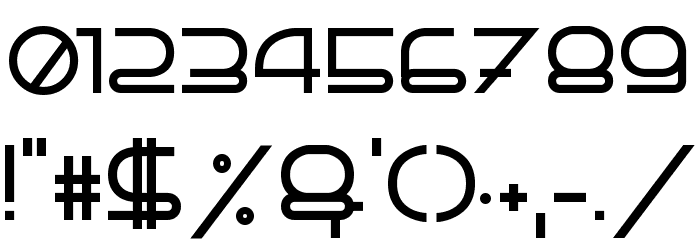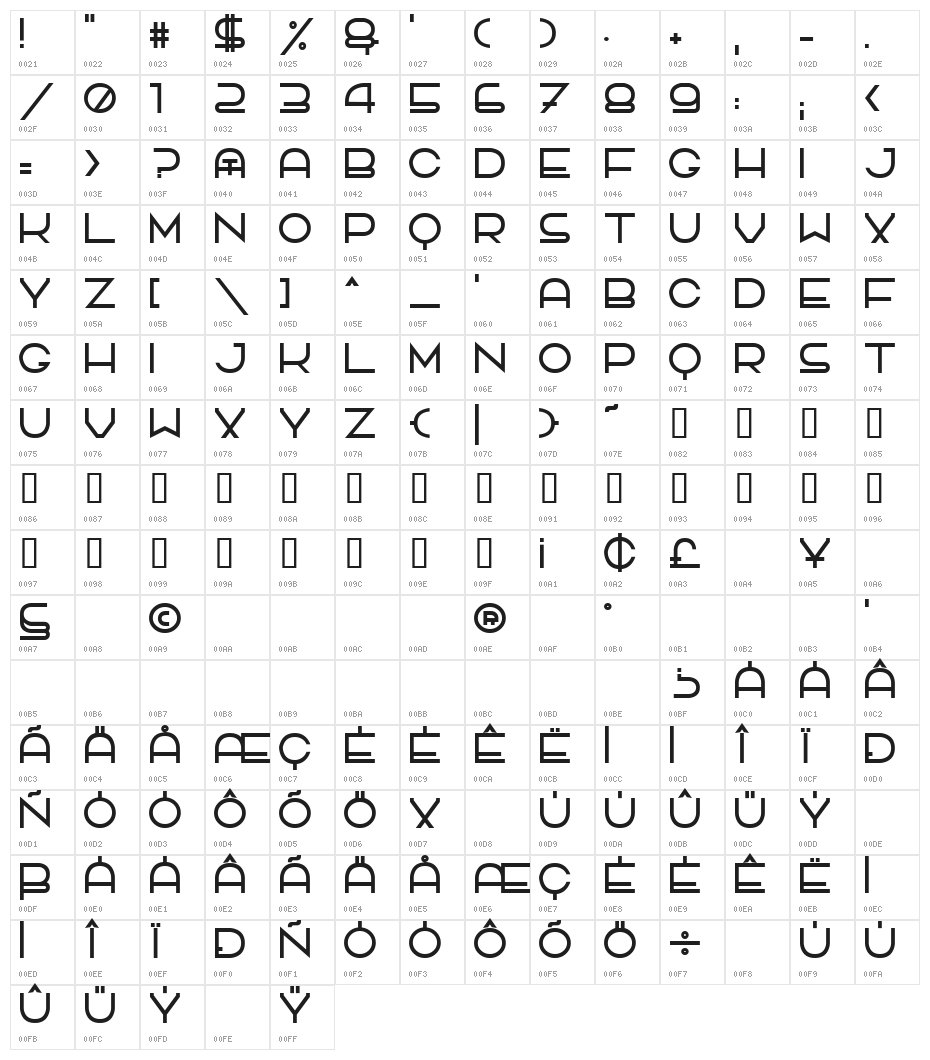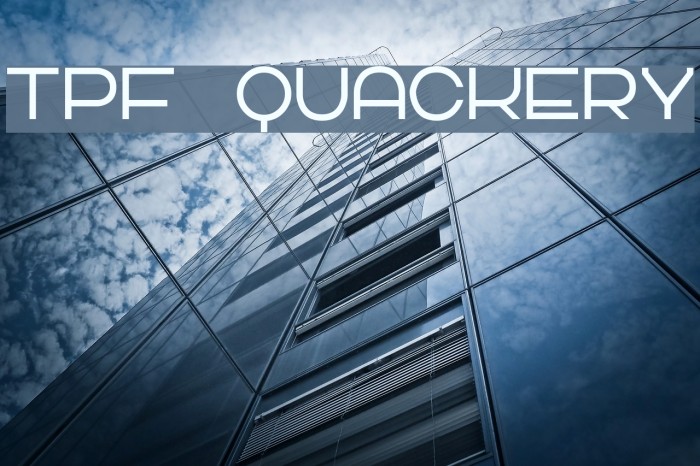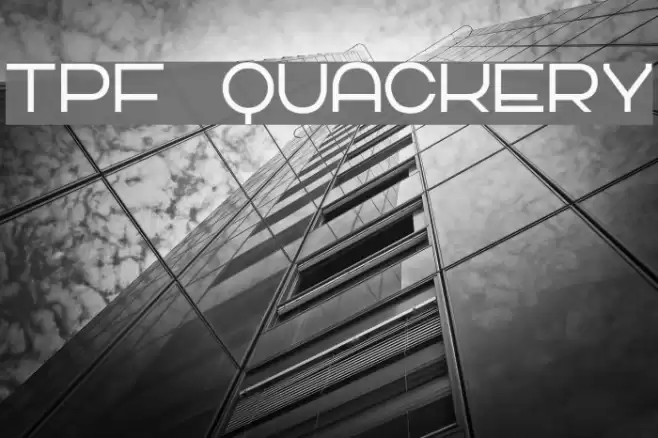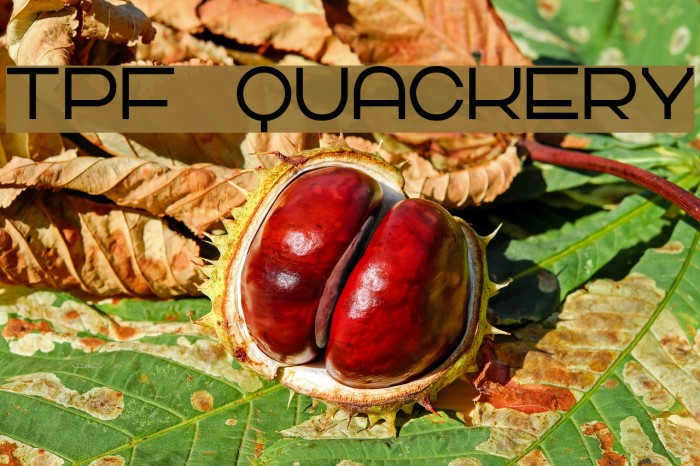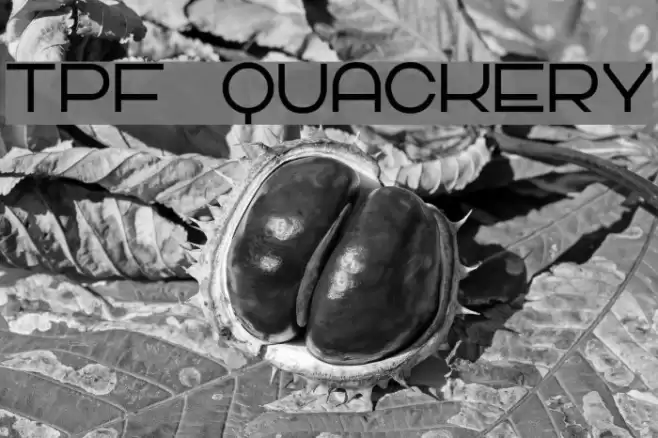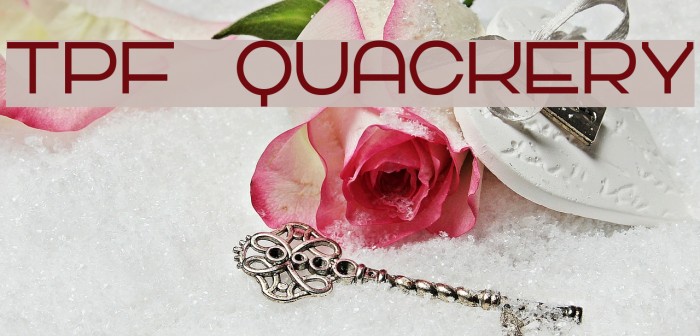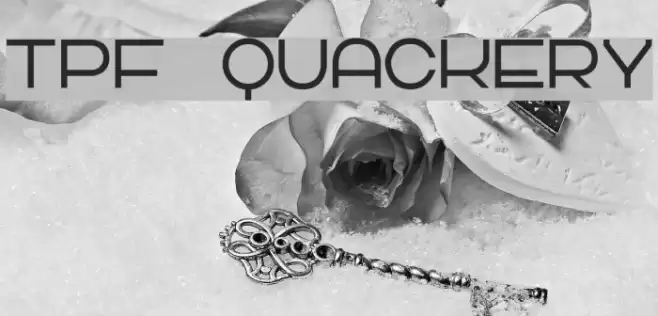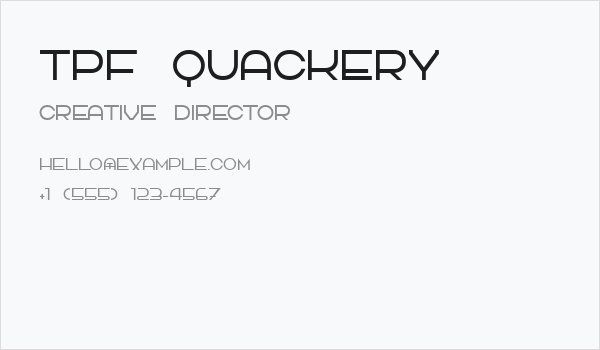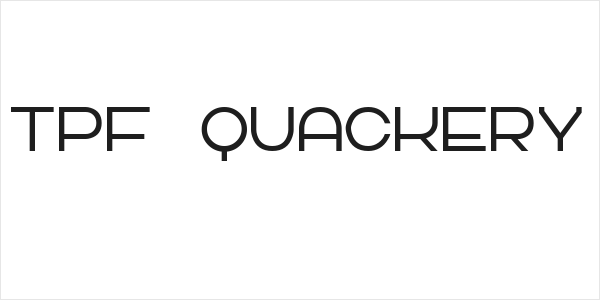
TPF Quackery Font
This font features a geometric and modern design with a unique blend of circular and angular elements. The uppercase and lowercase letters maintain a consistent structure, with a focus on clean lines and minimalistic forms. The numerals are distinct and align well with the overall aesthetic, offering a futuristic feel. Special characters are crafted to match the font's style, ensuring uniformity across all glyphs. The font's design is both bold and approachable, making it suitable for a variety of applications.
Use CaseHeadlines, Logos, Digital Media
Proposed ProjectsIdeal for branding, advertising, and digital media projects that require a modern and sleek appearance.